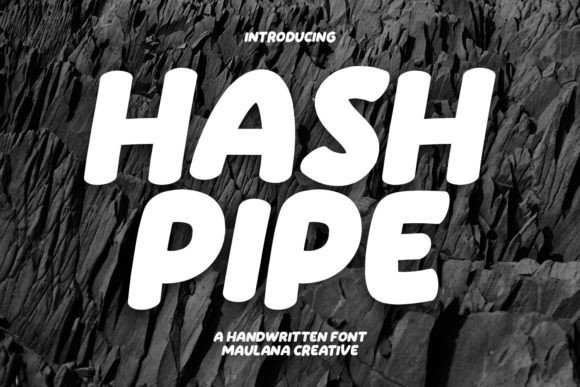
**Introducing Hash Pipe Font: The Ultimate Display Font for Captivating Creations**
Unleash the power of Hash Pipe Font, a modern and striking display font designed to elevate your projects to new heights. With its bold and contemporary style, Hash Pipe instantly grabs attention, making it the perfect choice for any design that demands to stand out.
**Why Choose Hash Pipe Font?**
* **Designed for Impact:** Every stroke of Hash Pipe is crafted to deliver maximum visual impact. Its bold lines and unique character shapes command attention, ensuring your message shines through.
* **Fresh and Contemporary:** Embrace the latest design trends with Hash Pipe's modern aesthetic. Its contemporary flair adds a touch of sophistication and freshness to any project.
* **Versatile and Adaptable:** Whether you're designing logos, posters, social media graphics, or website headers, Hash Pipe effortlessly adapts to a wide range of applications. Its versatility knows no bounds.
**Unlock Your Creativity with Hash Pipe Font:**
* **Ignite Your Imagination:** Let Hash Pipe ignite the spark of inspiration within you. Its bold and captivating style encourages creativity and pushes the boundaries of design.
* **Showcase Your Expertise:** Make a statement with Hash Pipe. Its professional and polished appearance reflects your design prowess and adds credibility to your work.
* **Capture the Moment:** Create designs that resonate with your audience. Hash Pipe's ability to convey emotions and messages makes it the perfect choice for projects that aim to leave a lasting impression.
**Experience the Hash Pipe Difference:**
* **Transform Your Designs:** Witness the transformative power of Hash Pipe as it breathes new life into your creative projects. Its bold presence elevates ordinary designs into extraordinary masterpieces.
* **Captivate Your Audience:** Prepare to mesmerize your audience with designs that captivate and engage. Hash Pipe's bold strokes and contemporary style create visuals that leave a lasting impact.
* **Make a Bold Statement:** Stand out from the crowd with Hash Pipe's bold and distinctive appearance. Its unique character shapes and striking presence ensure your designs make a statement.
Elevate your projects to new heights with Hash Pipe Font. Download it now and experience the transformative power of this modern and bold display font. Let Hash Pipe guide your creativity and create designs that captivate, inspire, and make a lasting impression.